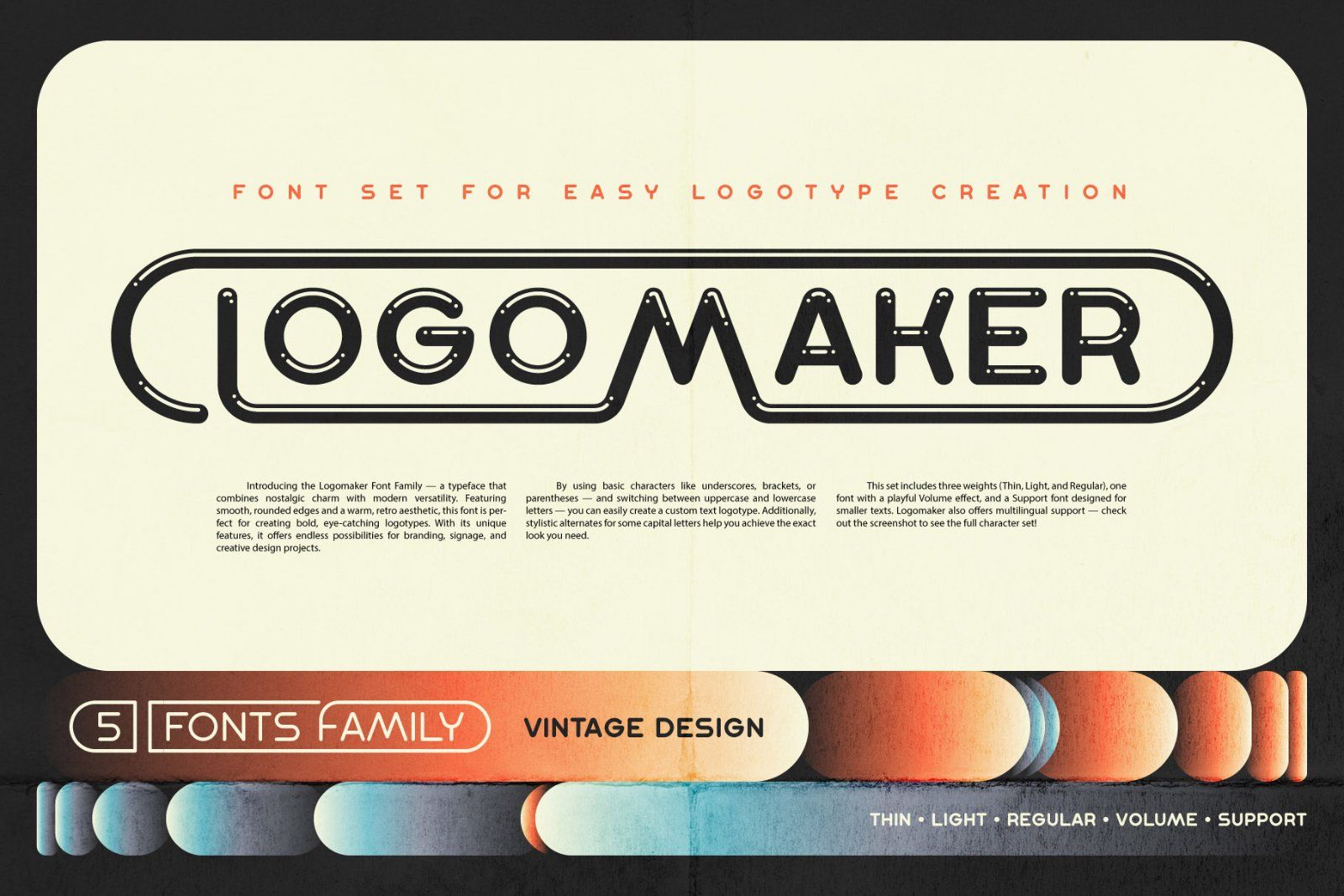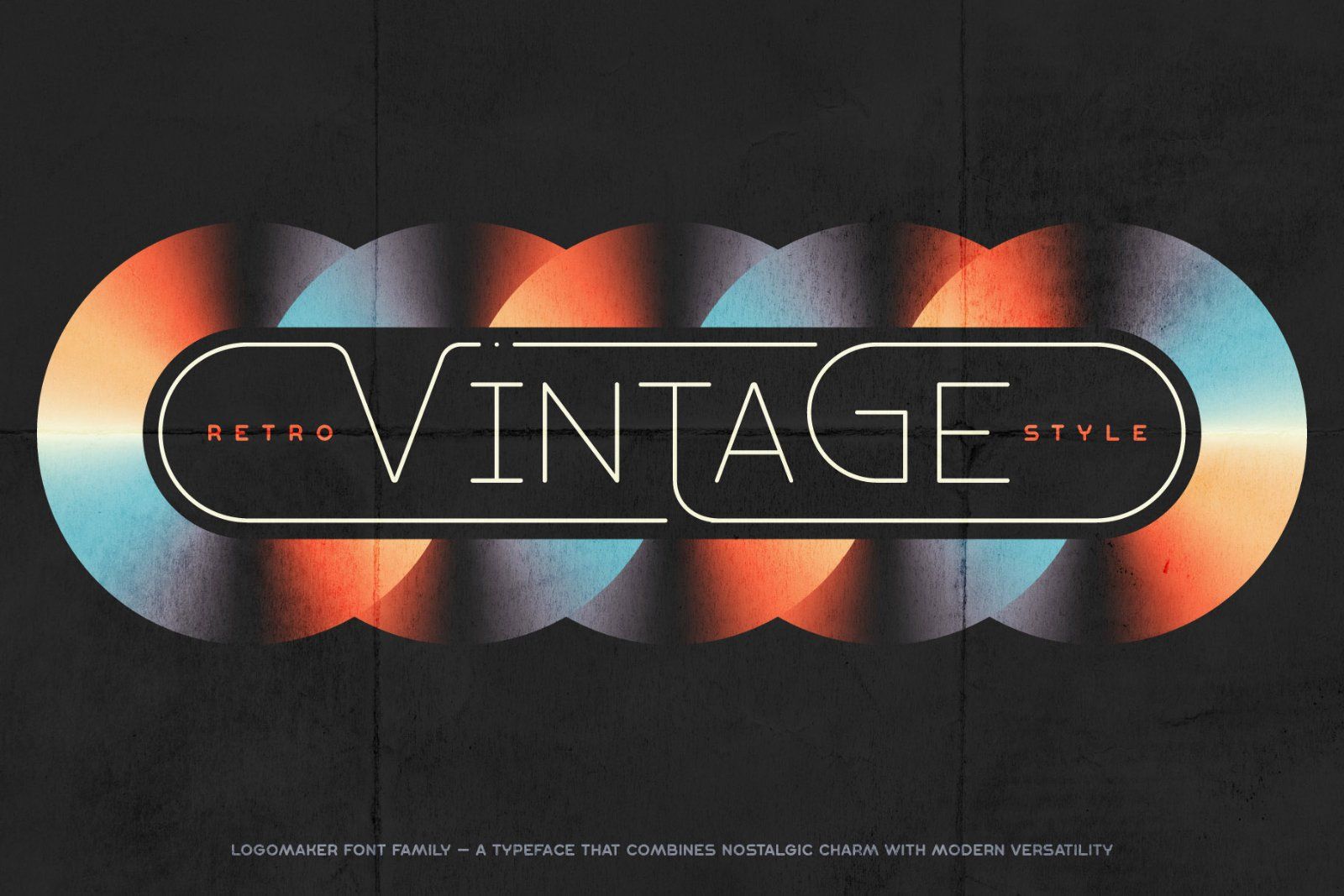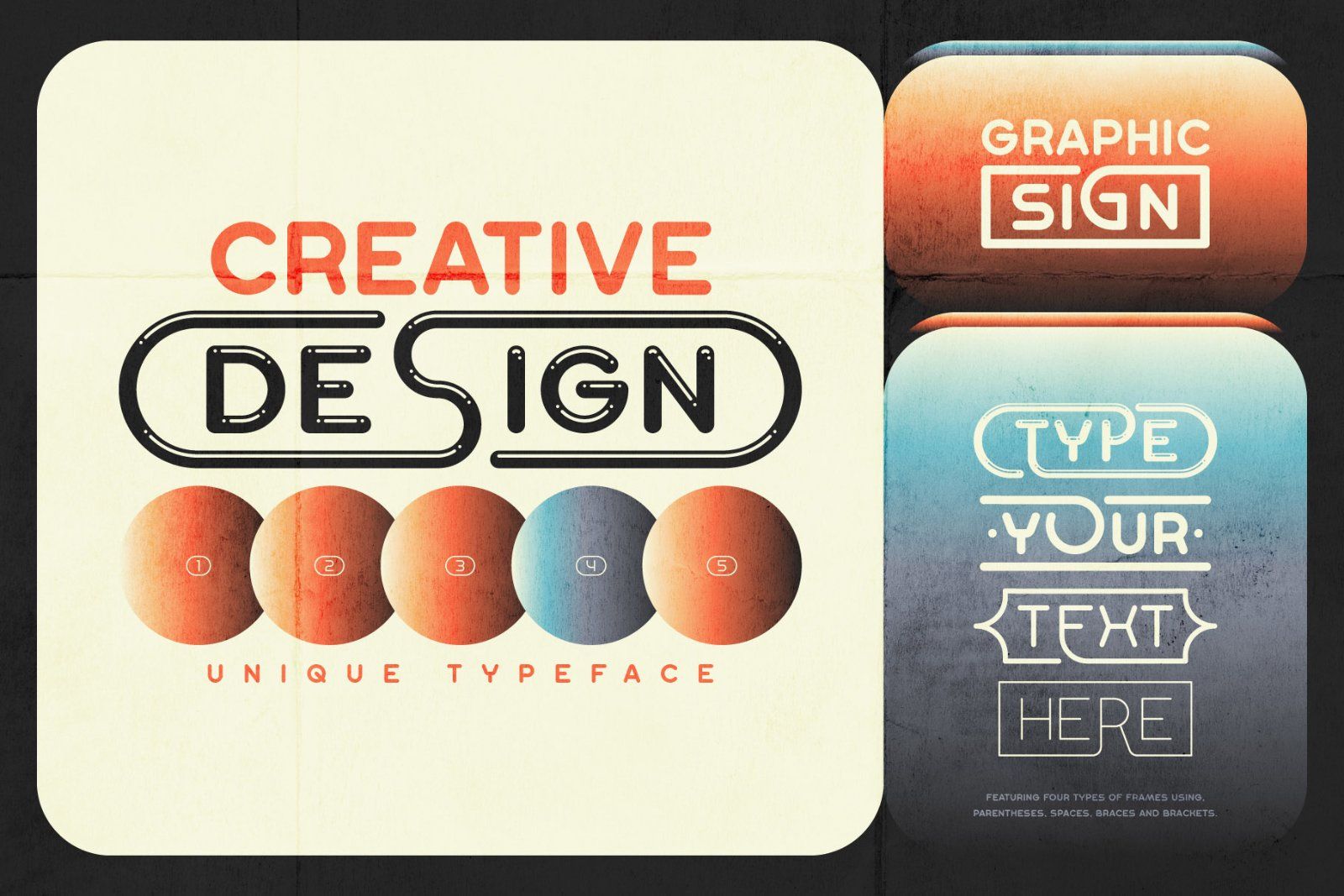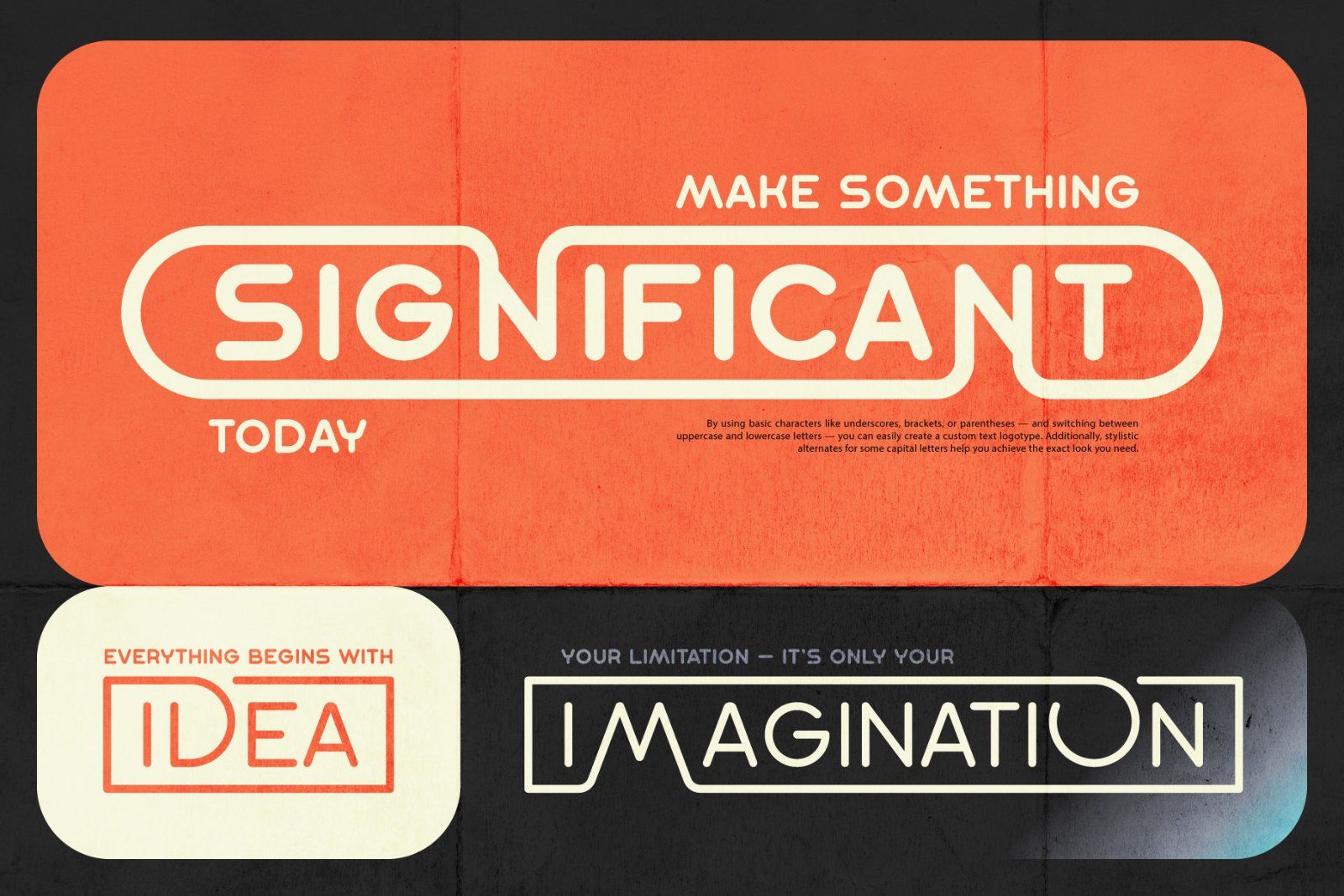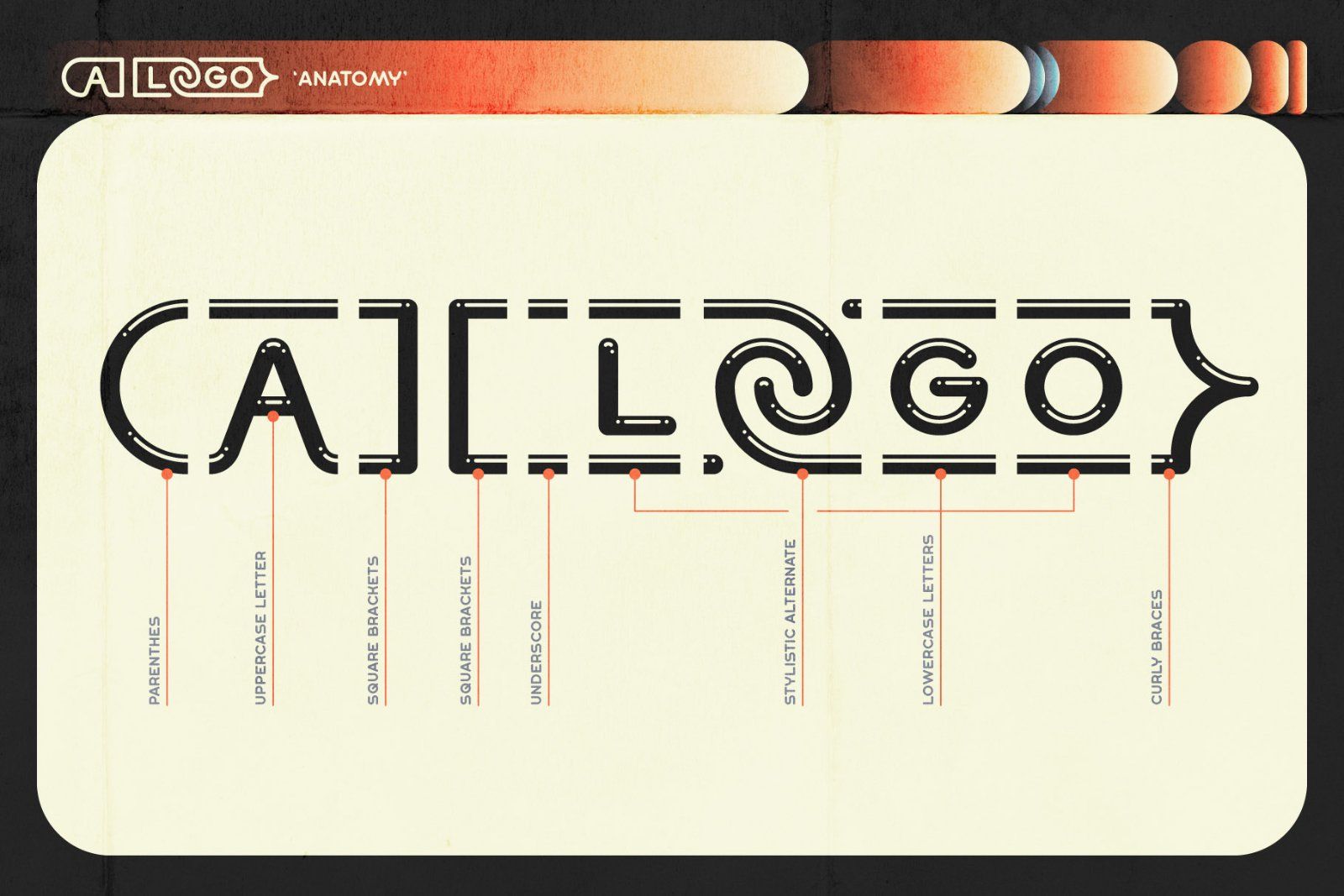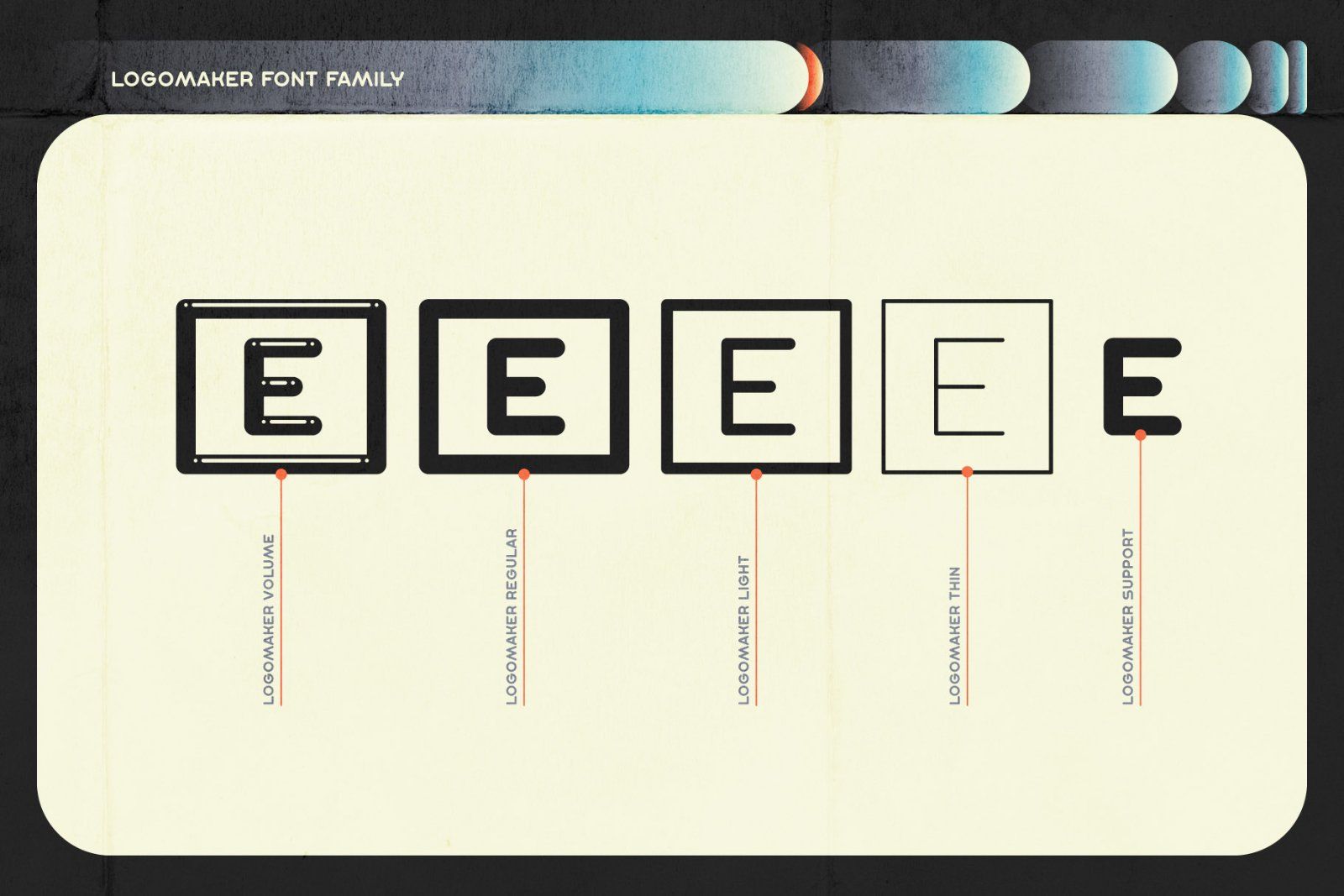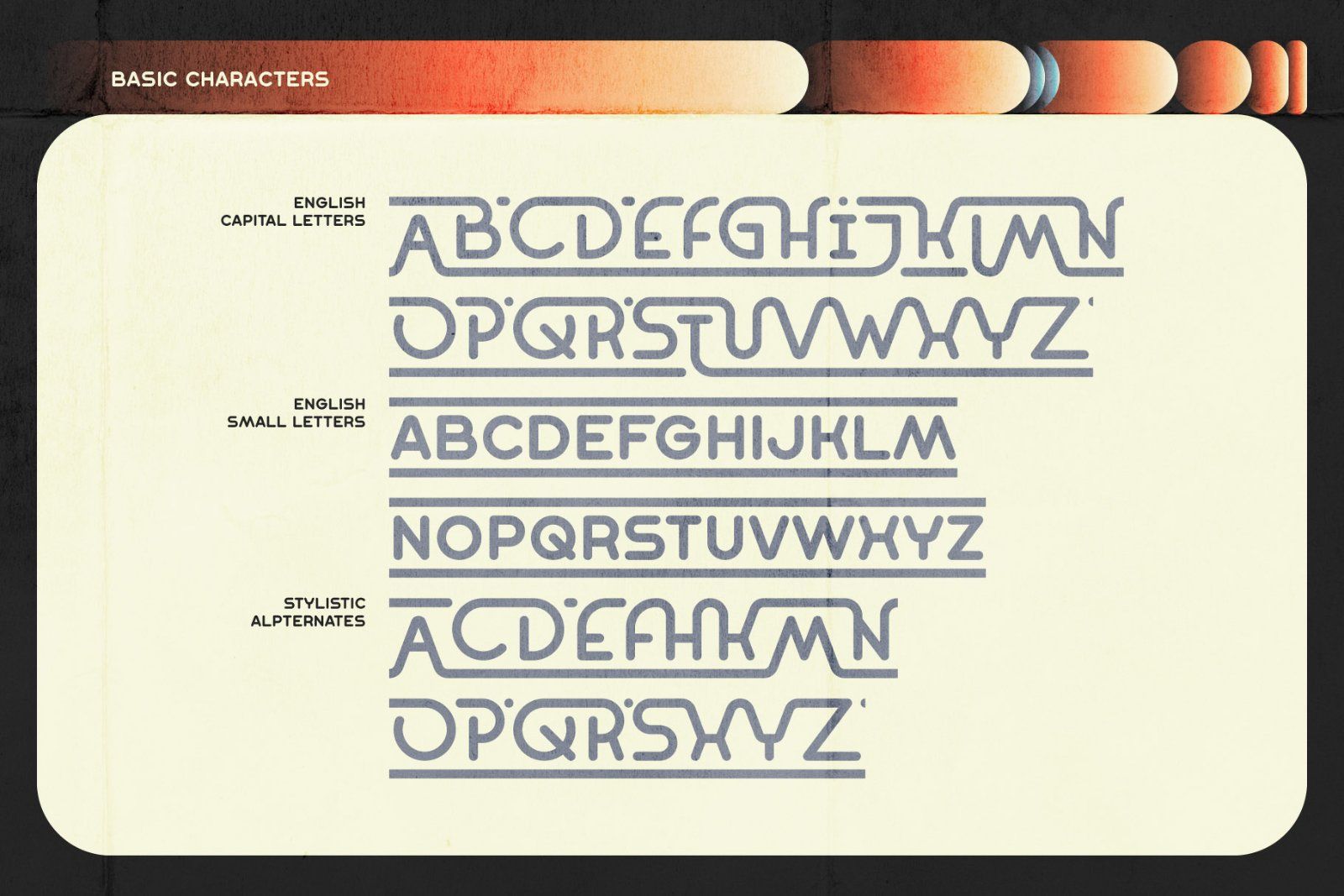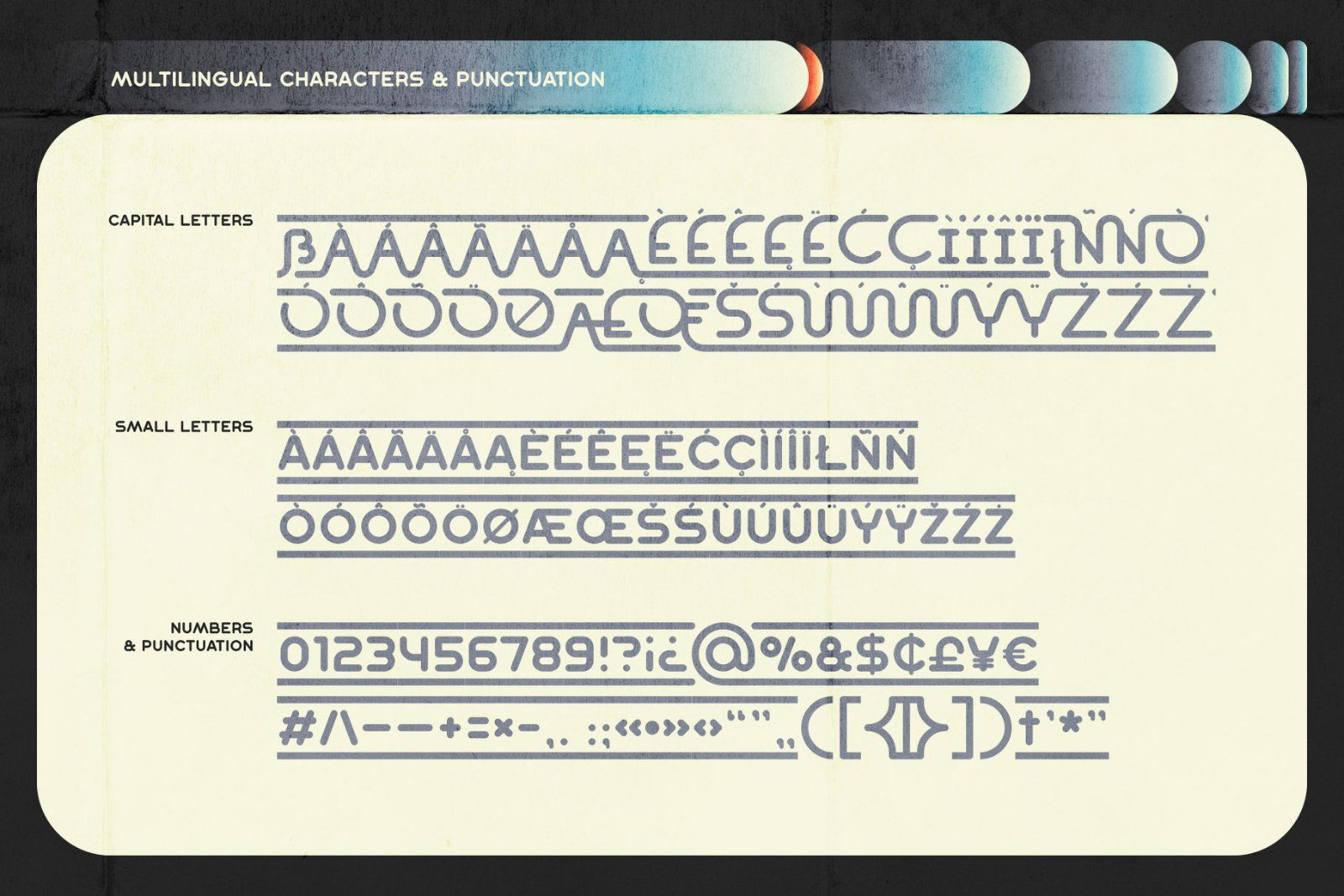
Introducing the Logomaker Font Family — a typeface that combines nostalgic charm with modern versatility. Featuring smooth, rounded edges and a warm, retro aesthetic, this font is perfect for creating bold, eye-catching logotypes. With its unique features, it offers endless possibilities for branding, signage, and creative design projects.
By using basic characters like underscores, brackets, or parentheses — and switching between uppercase and lowercase letters — you can easily create a custom text logotype. Additionally, stylistic alternates for capital letters help you achieve the exact look you need.
This set includes three weights (Thin, Light, and Regular), one font with a playful Volume effect, and a Support font designed for smaller texts.
Logomaker also offers multilingual support — check out the screenshot to see the full character set!